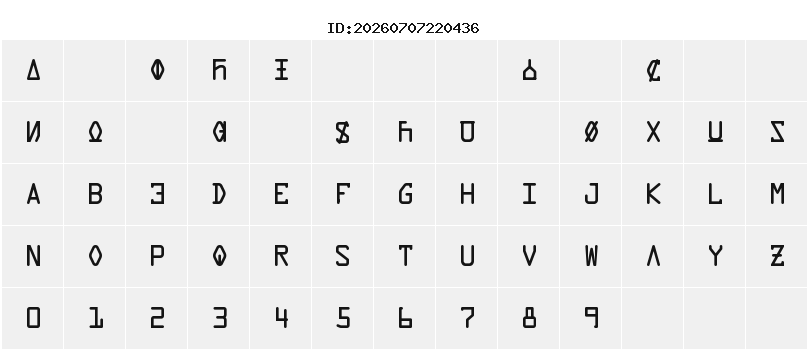
Data Control Unifon Preview
• Font Name: Data Control Unifon
• Font Style: Unifon
• Font ID: Data Control Unifon
• Full Font Name: Data Control Unifon
• Version: Appropriated for Unifon for Vic Fieger
• PostScript Name: DataControlUnifon
• Character Count: 655
About Data Control Unifon.ttf
Data Control Unifon.ttf is a modern, elegant sans-serif font designed for ultimate readability and visual harmony. Perfect for branding, headlines, web design, and print materials.